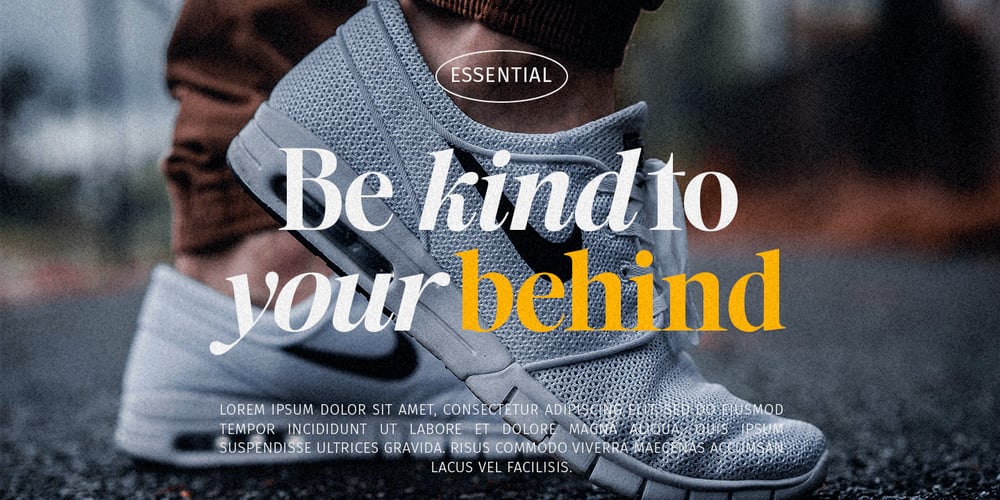
The New Elegance Font Family was designed by Mulkan Nazir and published by Great Studio. The New Elegance contains 8 styles and family package options. The New Elegance is a new editorial serif with all clean and soft lines, tight curves, and a trendy elegant look! The New Elegance has two versions of the font, namely serif & Sans Serif which are equipped with an italic version style, very suitable for your design needs such as very suitable for creating nostalgic designs but still clean and elegant such as headlines, magazines, logos, packaging, editorial, and much more.Thank you,Great Studio